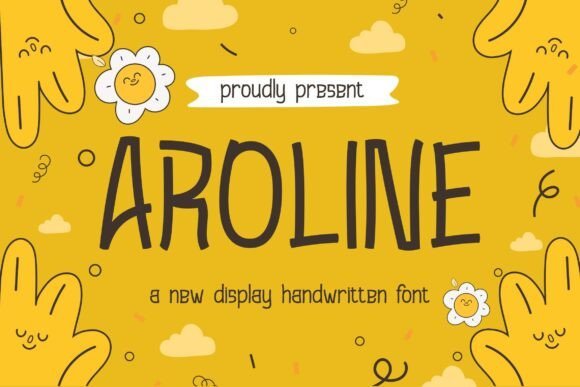
A World of Whimsy: Introducing the Aroline Font
Who among us hasn’t stared blankly at a blank page, waiting for that elusive spark of creativity to strike? For designers, that moment often comes when they discover a font that perfectly captures the essence of their project. For me, it was the Aroline Font – a display handwritten typeface that exudes effortless charm and playfulness.
The Aroline Font is more than just a font; it’s a tool that helps designers breathe life into their work. Its tall, condensed structure and friendly, approachable soul make it an excellent choice for vertical designs, social media stories, and quirky editorial headers where space is a premium but personality is a requirement. With its slender proportions and versatility, the Aroline Font is a valuable addition to any designer’s toolkit, especially when paired with soft pastel palettes or vibrant, sunny aesthetics.
Aroline Font Key Features
- Font Family: Aroline is a sans-serif font family designed for digital use.
- Font Size: Offers 8 font weights, ranging from Light to Extra Bold.
- Resolution: Optimized for high-resolution displays, suitable for print and digital applications up to 300 DPI.
- Unique Characteristics: Aroline features a modern, clean design with subtle rounded edges and a high x-height, making it highly legible in various contexts.
- Language Support: Supports over 200 languages, including Latin, Cyrillic, and Greek scripts.
Aroline Font Review
Initially, I was drawn to Aroline Font’s elegant and modern aesthetic ✨. The combination of smooth lines and rounded edges gives it a sophisticated feel that’s perfect for high-end branding or luxury packaging. The font also includes a range of weights and styles, making it versatile for various design applications.
- ✨ High-quality aesthetic with a modern twist
- ✨ Wide range of weights and styles for flexibility
- ✨ Smooth lines and rounded edges for a sophisticated feel
However, I did encounter some limitations ⚠️. The font can appear somewhat generic when used in body text or everyday applications, lacking the unique character that would set it apart from other fonts. Additionally, the font’s versatility can be a double-edged sword – while it’s great to have many options, it can also lead to decision paralysis when trying to choose the right weight or style for a particular project.
- ⚠️ May appear generic in body text or everyday applications
- ⚠️ Too many options can lead to decision paralysis
Overall, I think Aroline Font is a solid choice for designers looking to add a touch of elegance and sophistication to their work. While it may not be the best fit for every project, it’s certainly worth considering for high-end or luxury branding applications.
Aroline font is a beautiful script font that works well for:
- Handwritten-style labels and packaging
- Personalized gifts and cards
For best results, use Aroline font in conjunction with high-quality images and design elements to create a cohesive and visually appealing design.
Alternatives to Aroline Font
Great Vibes is a modern script font designed by Handmade Fonts. It’s perfect for creating a friendly and approachable atmosphere in designs such as logos, invitations, and advertisements. Great Vibes has a more relaxed feel compared to Aroline Font, which makes it suitable for casual and creative projects.
Comparison: Great Vibes has a more fluid and cursive feel compared to Aroline Font’s more geometric and elegant design. It’s ideal for projects that require a softer, more personal touch.
Pacifico is a beautiful script font designed by Vernon Adams. It’s suitable for a wide range of projects, including logos, branding, and packaging. Pacifico has a more refined and sophisticated feel compared to Aroline Font, making it perfect for high-end designs.
Comparison: Pacifico has a more elegant and refined feel compared to Aroline Font’s more casual and approachable design. It’s ideal for projects that require a sense of luxury and sophistication.
Carolyna Pro is a modern script font designed by Alejandro Paul. It’s perfect for creating a unique and eye-catching atmosphere in designs such as logos, packaging, and advertisements. Carolyna Pro has a more bold and expressive feel compared to Aroline Font, making it suitable for projects that require a strong visual statement.